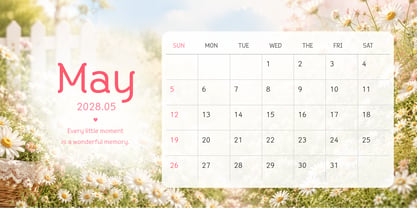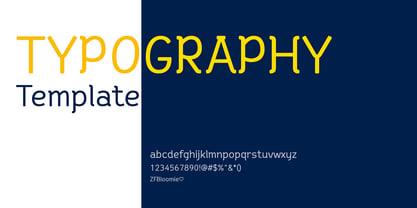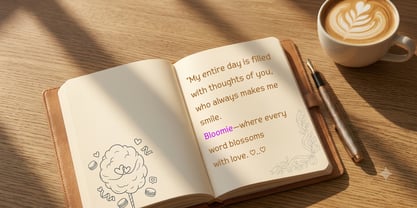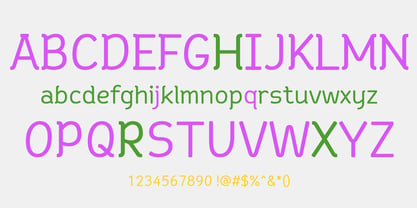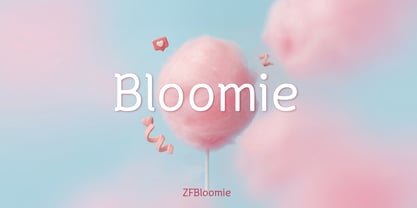
ZFBloomie
The ZFBloomie Font Family was designed by joo-hong Kim and published by ZooFont. ZFBloomie contains 1 styles. More about this family
Bloomie is a clean, handwritten-style typeface inspired by the gentle beauty of blooming flowers. With its subtle terminal spurs and graceful serif details, it brings warmth, elegance, and a cheerful rhythm to every design. Designed with consistent stroke weight and a generous x-height, Bloomie offers excellent readability and a stable structure, making it a versatile choice for everything from mobile screens to print.